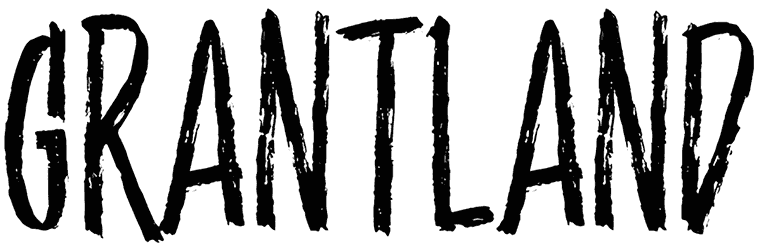
Hughs Font
Hughs font is a modern cursive style brush font, which you can utilize to develop one beautiful typography that all the viewers will cherish! It offers bold, stylish characters, with a friendly, relaxed natural hand-drawn feel, to look chic and lovely.
All the letters you may require when assembling your ideal typography, including mixed letters, numbers, and punctuations, are present. Hughs font is highly recommended for popular places like magazines, fashion designs, branding, logos, invitation cards, and more.
Designed by: Youssef Habchi